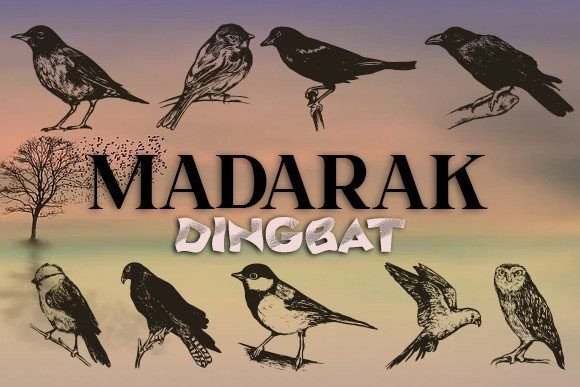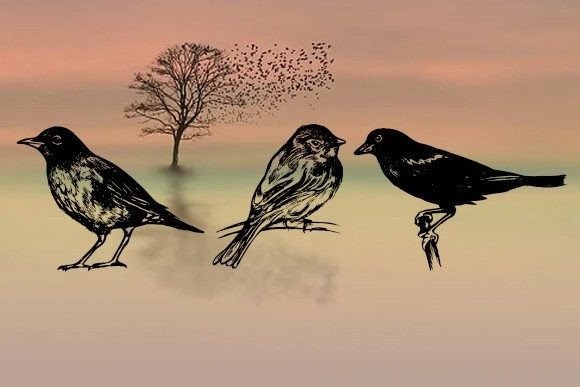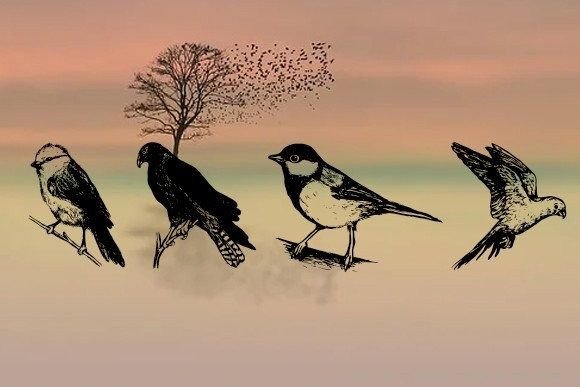
ABOUT MADARAK FONT
“Madarak” is an incredible dingbats font that offers a collection of captivating bird illustrations. This font is designed to add a touch of elegance, beauty, and nature to your projects, making it a perfect choice for various visual mediums.
With “Madarak,” you have a diverse array of bird designs at your disposal. These bird illustrations range from realistic depictions to stylized and whimsical renditions, allowing you to explore different artistic styles and aesthetics. Whether you’re looking for majestic eagles, colorful parrots, or delicate songbirds, “Madarak” has a variety of avian symbols to offer.
When used in your projects, “Madarak” can evoke a sense of freedom, grace, and natural beauty. The bird illustrations add a touch of liveliness and movement, capturing the attention of viewers and conveying a sense of wonder and enchantment. Whether you’re creating posters, flyers, or any other printed materials, “Madarak” can make your designs visually appealing and memorable.
The versatility of “Madarak” allows you to use the bird illustrations in various creative ways. You can incorporate them as decorative elements, create patterns and motifs, or even use them as standalone artworks. Their intricate details and graceful forms make them visually captivating and impactful.
“Madarak” is an excellent choice for projects that seek to convey themes of nature, freedom, and beauty. Whether you’re designing for environmental campaigns, outdoor events, or simply want to add a touch of elegance to your visual compositions, this dingbats font can help you achieve a distinct and evocative visual identity.
So, embrace the beauty of “Madarak” and let the birds soar in your designs. Incorporate these captivating illustrations into your posters, flyers, or prints, and let them bring a sense of wonder and serenity to your projects.